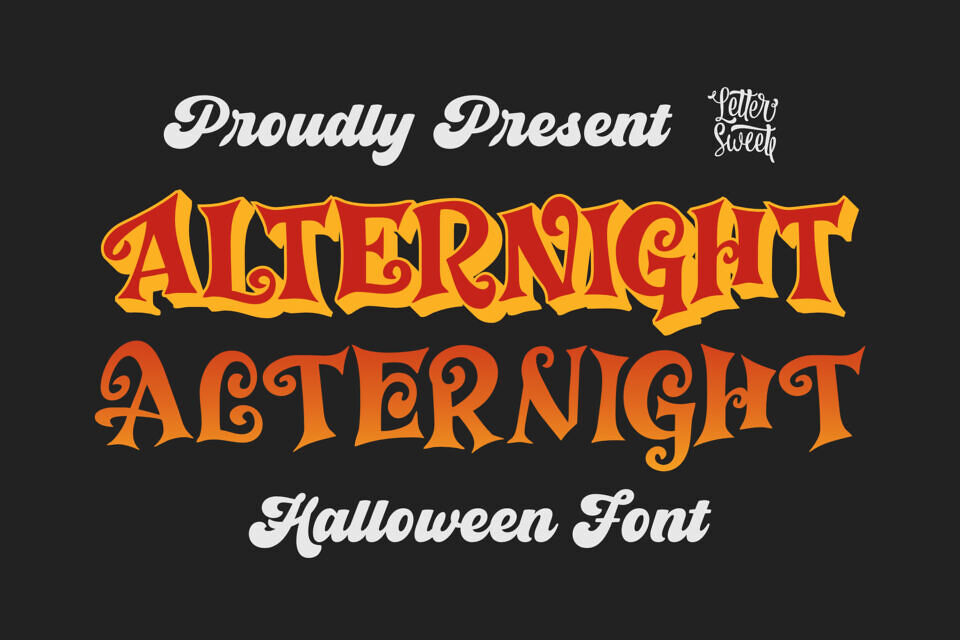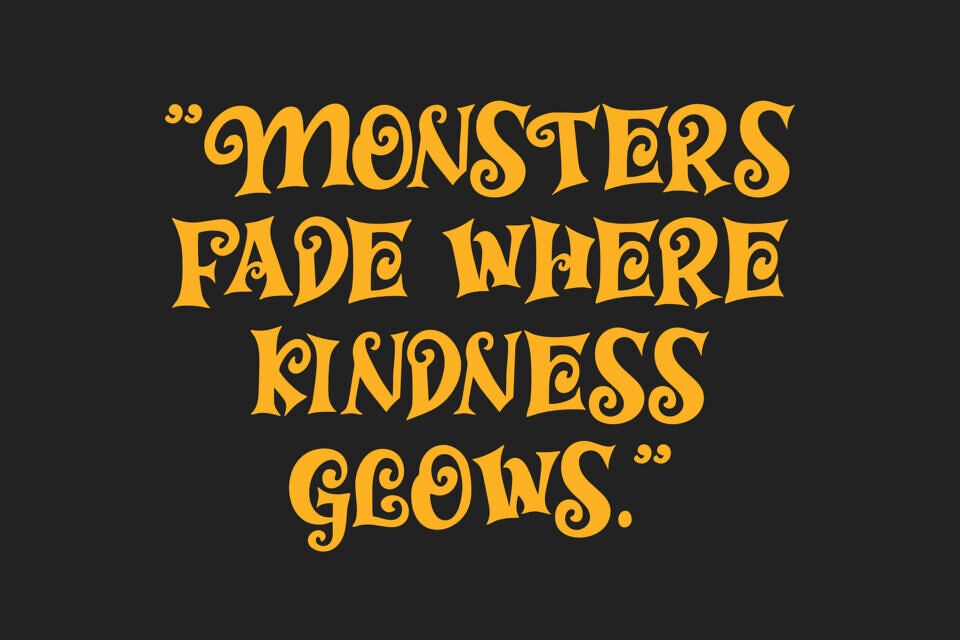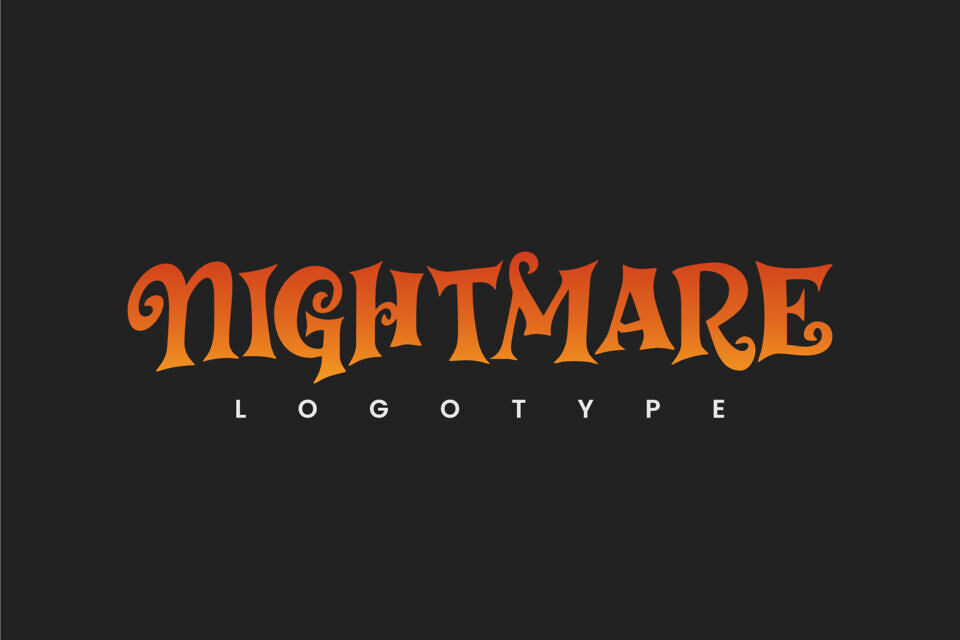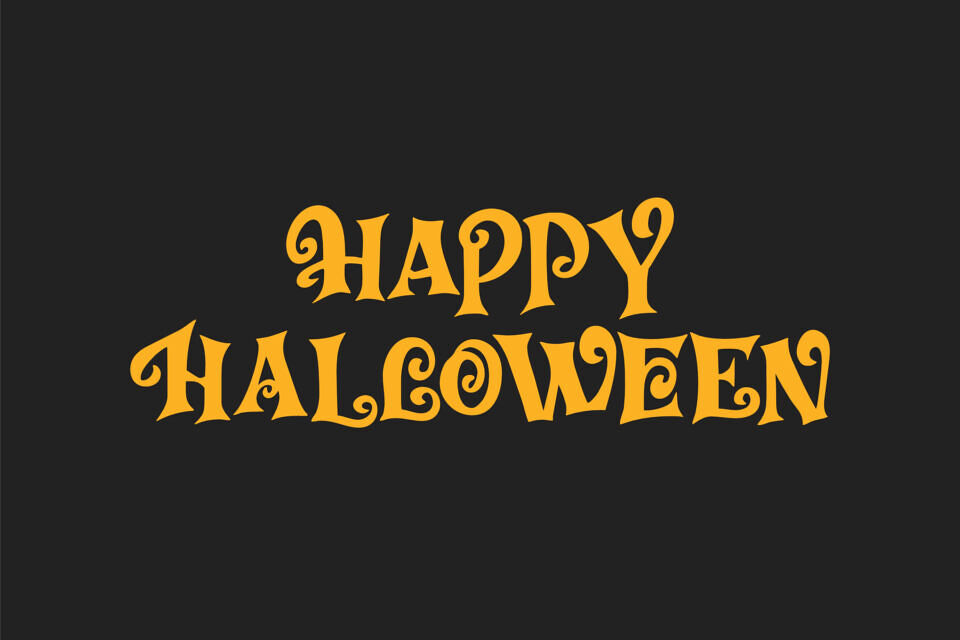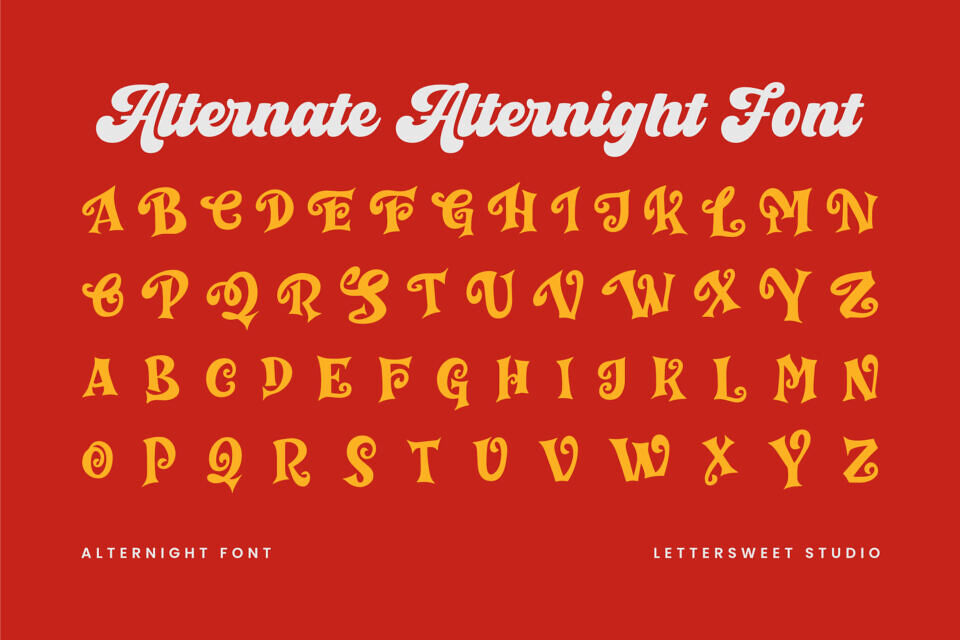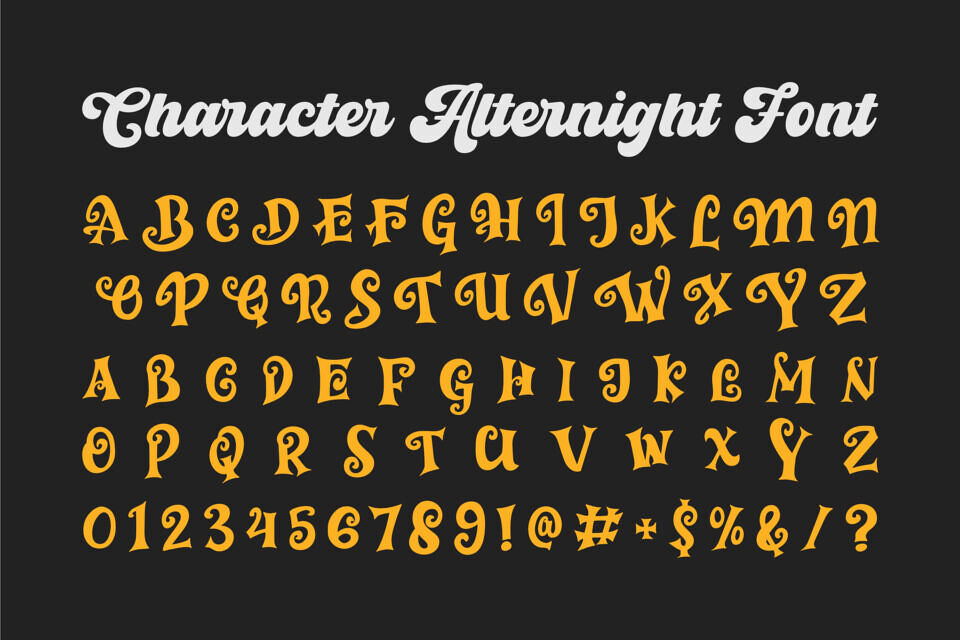
Alternight is a bold Halloween display font with classic horror-poster vibes—thick serifs, swirling curls, and sharp silhouettes that make the word ALTERNIGHT snap off dark backgrounds. Designed for instant impact and clear readability, it turns any headline into a spooky, cinematic title.
Perfect for Halloween event posters, YouTube thumbnails, seasonal logos, packaging, banner ads, apparel, stickers, and podcast covers.